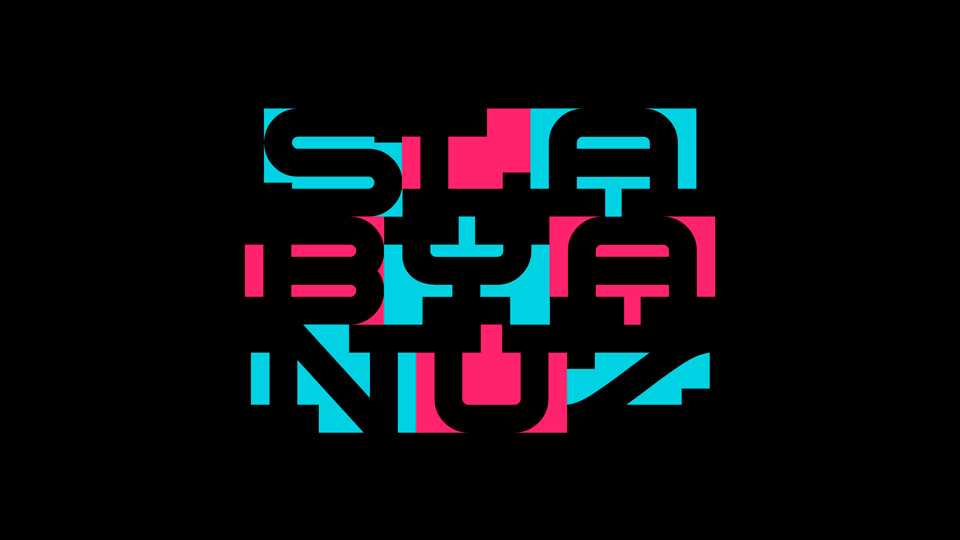
Download Slabyanuz font, a huge negative space typeface with thick slabs. Slabyanuz has connections at the top and bottom, which makes some nice strange shapes when you use multiple lines.
Designer: Tup Wanders